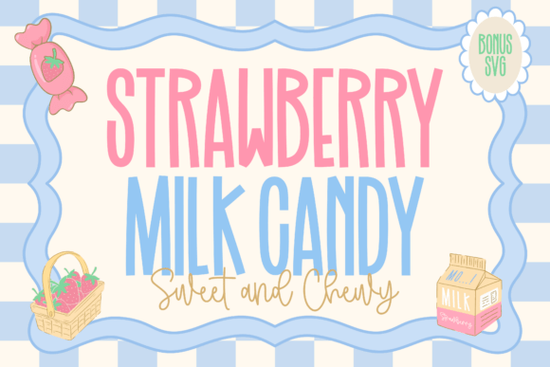
If you have been looking for a typeface that brings instant warmth and sweetness to your layouts, the Strawberry Milk Candy Font fits right into that niche. It captures a specific nostalgic feeling reminiscent of old-school ice cream parlors or childhood treats, making it a standout choice for personal and commercial projects alike. Designed as a duo, it offers two distinct voices within a single package, allowing you to create hierarchy without losing that cohesive, sugary charm.
This collection pairs a tall, hand-drawn sans serif with a smooth, flowing script. The uppercase characters are slim and whimsical, giving off a light and youthful energy. Meanwhile, the handwritten elements add a soft touch that feels like the creamy swirl of milk mixed with fruit puree. Because the letterforms mimic something organic and delicious, the overall effect is irresistible to anyone who appreciates a cheerful aesthetic.
How This Duo Balances Structure and Flow
The strength of this set lies in its combination of two very different styles. You can use the structured sans serif for headlines that need to remain legible, such as product labels or event titles. Then, switch to the script for subheadings or accents where you want to convey a more personal message. This balance prevents your design from becoming too uniform while ensuring the text still reads easily.
Unlike some heavy display fonts that dominate the visual space, these character forms sit lightly on the page. You can layer them behind images or overlay them on soft pastel backgrounds without overwhelming the viewer. If you are used to working with stacked typography, you might find similar versatility when exploring simple stacked font display fonts. However, this particular pair relies on the connection between the straight and curved lines rather than just stacking letters vertically.
For creators who usually prefer bolder looks, there are alternatives out there. You might consider browsing funky grunge font display fonts if you ever need to introduce roughness or contrast to a project that otherwise feels too polished. But for everything involving desserts, children, or soft branding, maintaining that gentle curve is essential.
Ideas for Using This Type in Your Projects
Because the design evokes food and playfulness, it works exceptionally well for packaging and merchandise. Imagine a sticker sheet featuring cute animals holding strawberries, or a mug design that says "Sweet Treats" in the script paired with a blockier header. Small business owners selling candles or baked goods often gravitate toward this kind of imagery because it triggers positive sensory associations.
Crafters using vinyl cutters like Cricut or Silhouette will appreciate how clean the outlines are. The kerning is generally open enough to prevent messy cuts, yet the details in the script provide enough texture for the material to show depth. You do not necessarily need expensive vector tools to prepare files for vinyl; sometimes simply converting the text to curves is all that is required before sending it to the machine.
When planning a full brand identity, you might want to see how this font interacts with other styles. While it pairs beautifully with floral elements found in crafty bloom font display fonts, sticking to a similar color palette ensures the typography doesn't get lost. If you decide to expand your library, you could also experiment with real wavy stacked font display fonts if you want to push the curvature even further for social media graphics.
When to Switch to a Different Style
No single typeface is perfect for every scenario. Sometimes, a project demands authority or rigidity that this playful font cannot provide. In those moments, looking at varsity sport army font display fonts might be a better approach. These styles bring a sense of discipline and structure that contrasts sharply with the dreaminess of strawberry milk aesthetics. Knowing when to switch helps keep your design portfolio diverse and adaptable to client requests.
- Label Designs: Use the script for ingredients and the sans serif for brand names.
- Social Media Posts: Overlay text on photos of desserts to increase engagement.
- Kids Parties: Perfect for invitations where readability matters for parents.
- Merchandise: Print on tote bags, mugs, or t-shirts for a trendy look.
Tips for Getting the Best Result
To ensure your final print or cut looks professional, pay attention to line height. Scripts often need more breathing room above and below them than standard sans serifs. If the lines feel cramped, your spacing adjustments will make a big difference in readability. Additionally, try adjusting the baseline shift slightly to match the height of the uppercase letters with the descending tails of lowercase script characters.